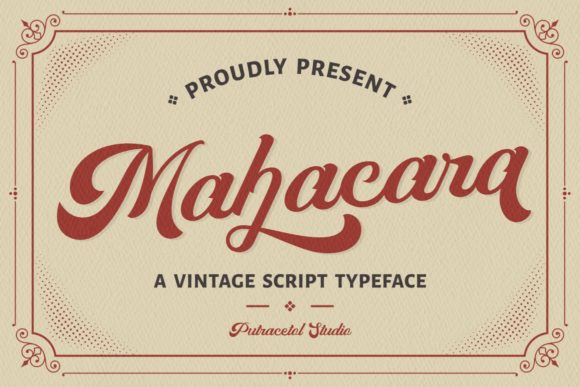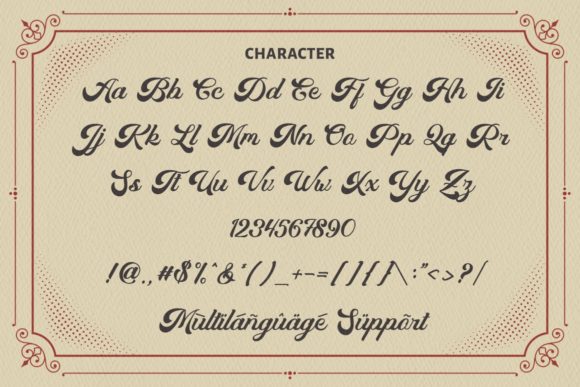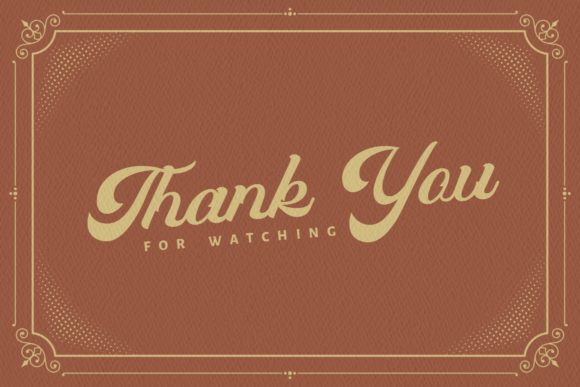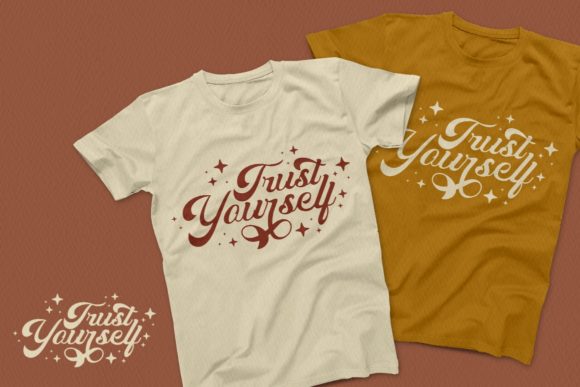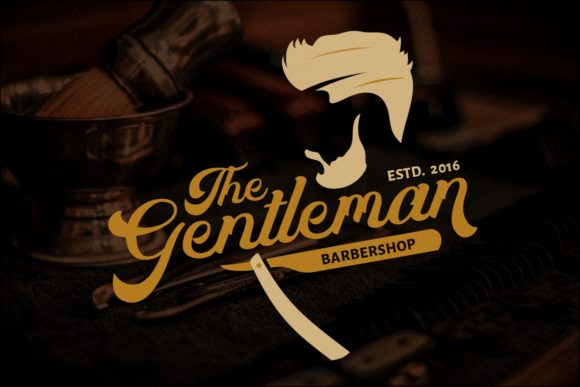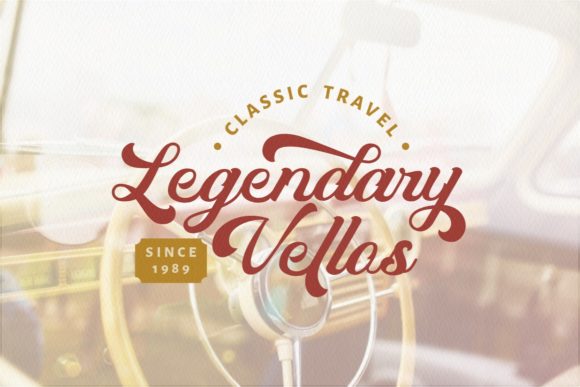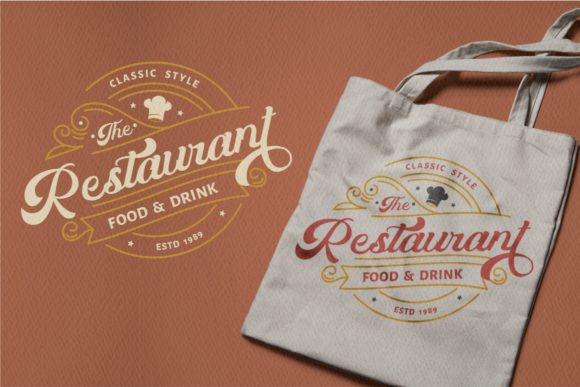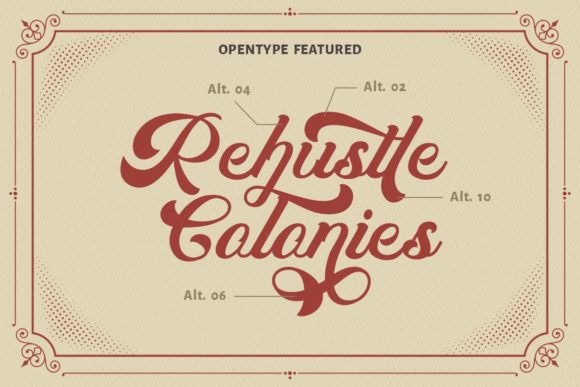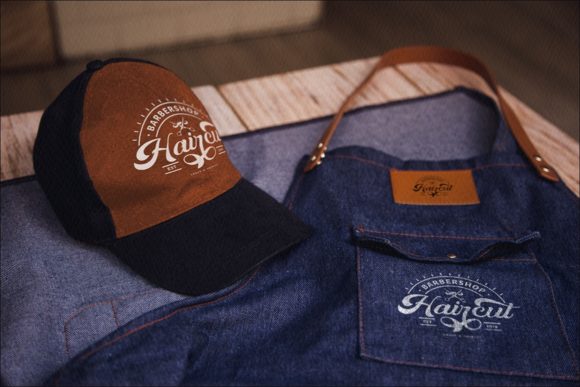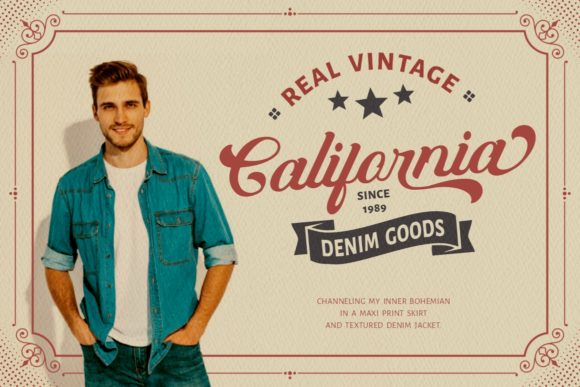
Mahacara Font
About Mahacara Font
Mahacara feels playfully nostalgic and delivers an incredible vintage aesthetic. Use this beautiful script font to add that special retro touch to any design idea you can think of!